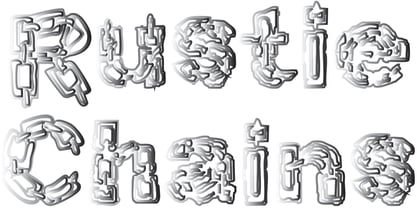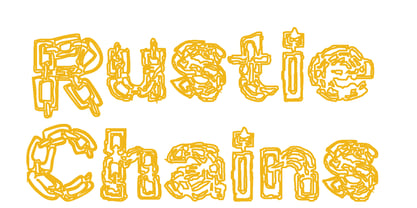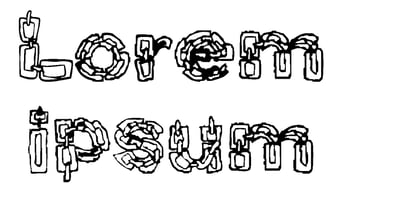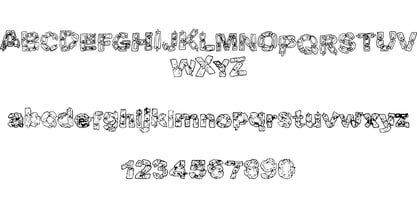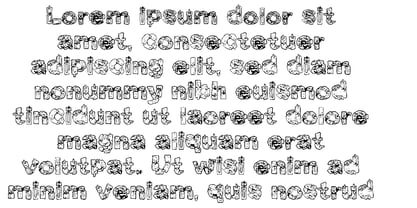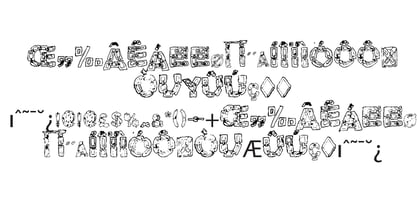
Die Schriftfamilie Rustiechains wurde von Jeremy Gill-Praba entworfen und von Jointype veröffentlicht. Rustiechains enthält 1 Stile.
Rustic Chains Font – Where Strength Meets Charm Elevate your designs with the Rustic Chains Font, which combines an industrial edge with rustic charm. This bold, all-caps typeface features thick, sturdy letterforms that evoke the rough, gritty texture of chain links and rugged, weathered materials. It is perfect for a wide range of creative projects, including logos, headlines, packaging, and posters, offering an organic yet impactful feel. Key Features: - **Bold & Strong**: A thick, solid structure that stands out and captures attention. - **Rustic Texture**: Subtle, hand-crafted details that add character and depth to each letter. - **Versatile Usage**: Ideal for branding, posters, merchandise, and any design requiring a touch of raw, industrial aesthetics. - **All-Caps**: Designed for maximum legibility and bold impact. Whether you're creating for an outdoor brand, a vintage-inspired product line, or any project needing a rugged, industrial edge, the Rustic Chains Font delivers power and authenticity to your designs.
This foundry is a studio that creates expensive and humanistic type that reflects the every day waking world.The type faces vary from script to graffiti like type.The work is know for its liveliness and personal approach to type.The types however remain to have a digital feel in part and is under the umbrella of Jgpartworker Ltd. The type produced has been adequately letter spaced tracked and kerned to create readability and has had its ascenders and defenders adjusted from the creation of the type faces to match this.